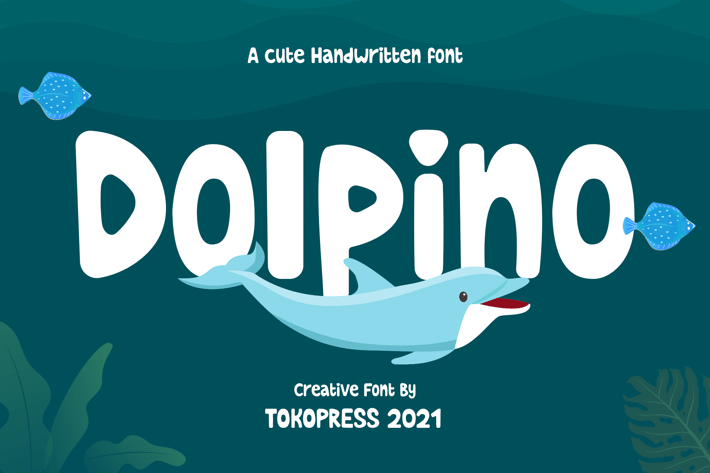
Dolpino - Kids Font
Bring a splash of joy to your next project with Dolpino, a playful kids font inspired by ocean life and built for maximum friendliness. With a bouncy baseline, soft rounded curves, and expressive letterforms, this font radiates a sense of warmth and adventure. Its childlike spirit and quirky rhythm make it ideal for brands and creatives seeking a fun, approachable vibe.
Whether you're designing a summer camp poster, a sea-themed book, or playful product packaging, Dolpino adds a dose of charm and clarity that young audiences and families will love. From its geometric loops to its slightly exaggerated letter proportions, this font is built for happy storytelling and standout messages.
Dolpino captures attention with its upbeat style and oceanic character, making it a perfect fit for kids branding, educational visuals, beach-themed events, or playful editorials. It speaks to children’s imagination while delivering readability for parents and educators. From mugs to posters, books to birthday cards, this font connects with its audience by offering a joyful tone with just the right balance of quirky and clean.
Key Features
Why Designers Love Dolpino
• Friendly, playful vibe with a hint of marine whimsy
• Smooth curves and a bouncy rhythm enhance visual interest
• Built for readability even at smaller sizes
• Excellent choice for kids books, merchandise, YouTube thumbnails, classroom decor, and more
Solving Design Needs
• Helps brands appear more fun and family-friendly
• Enhances storytelling in educational and entertainment products
• Adds unique personality to otherwise standard layouts